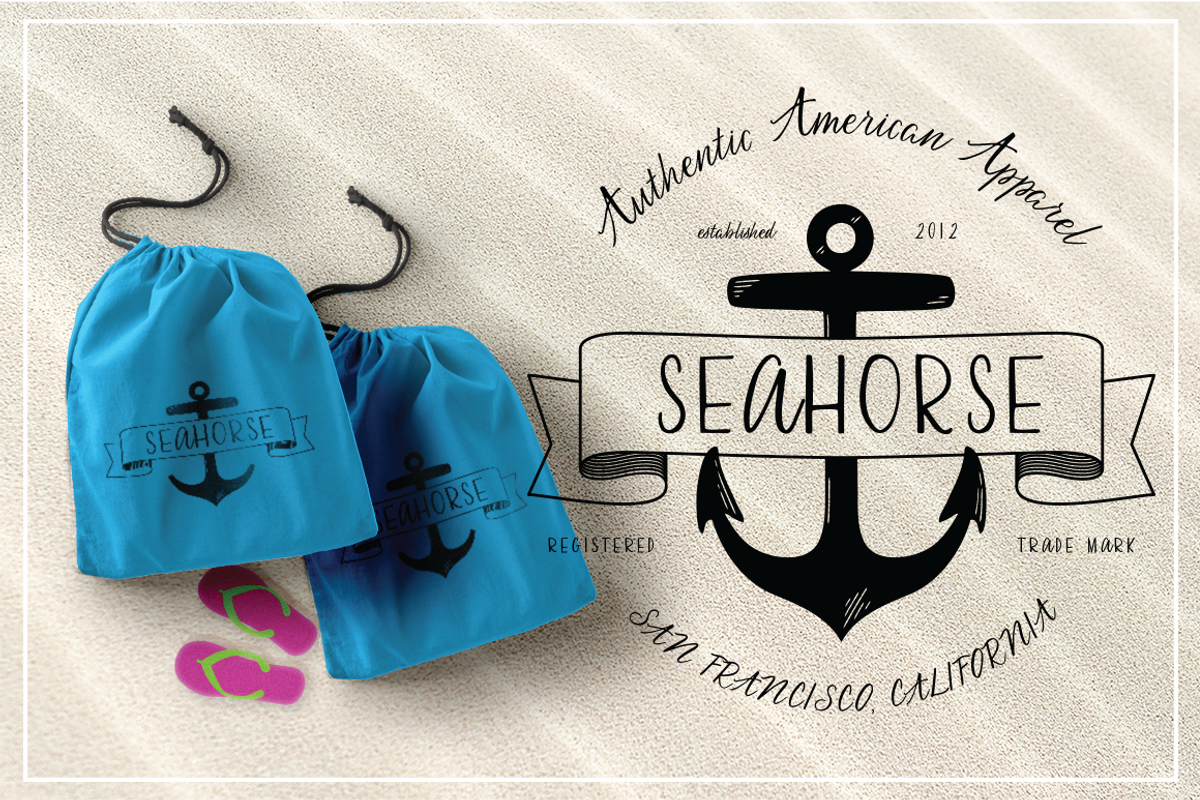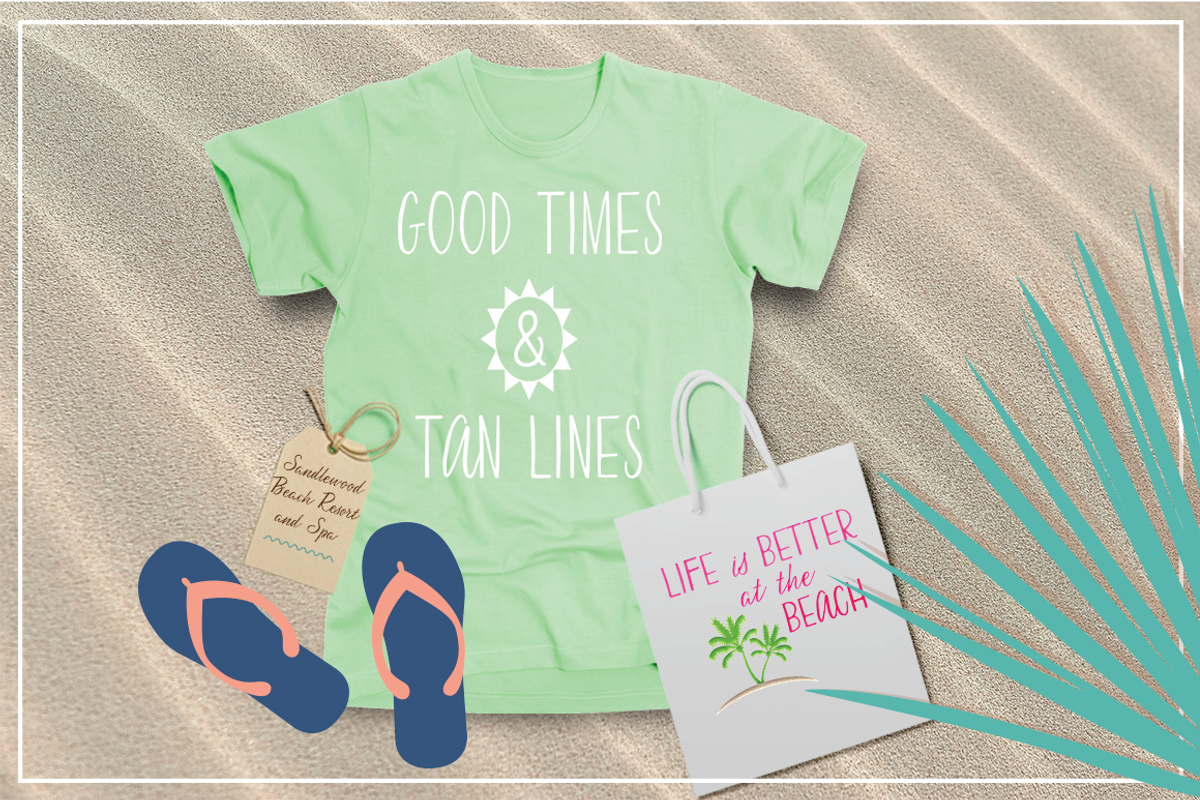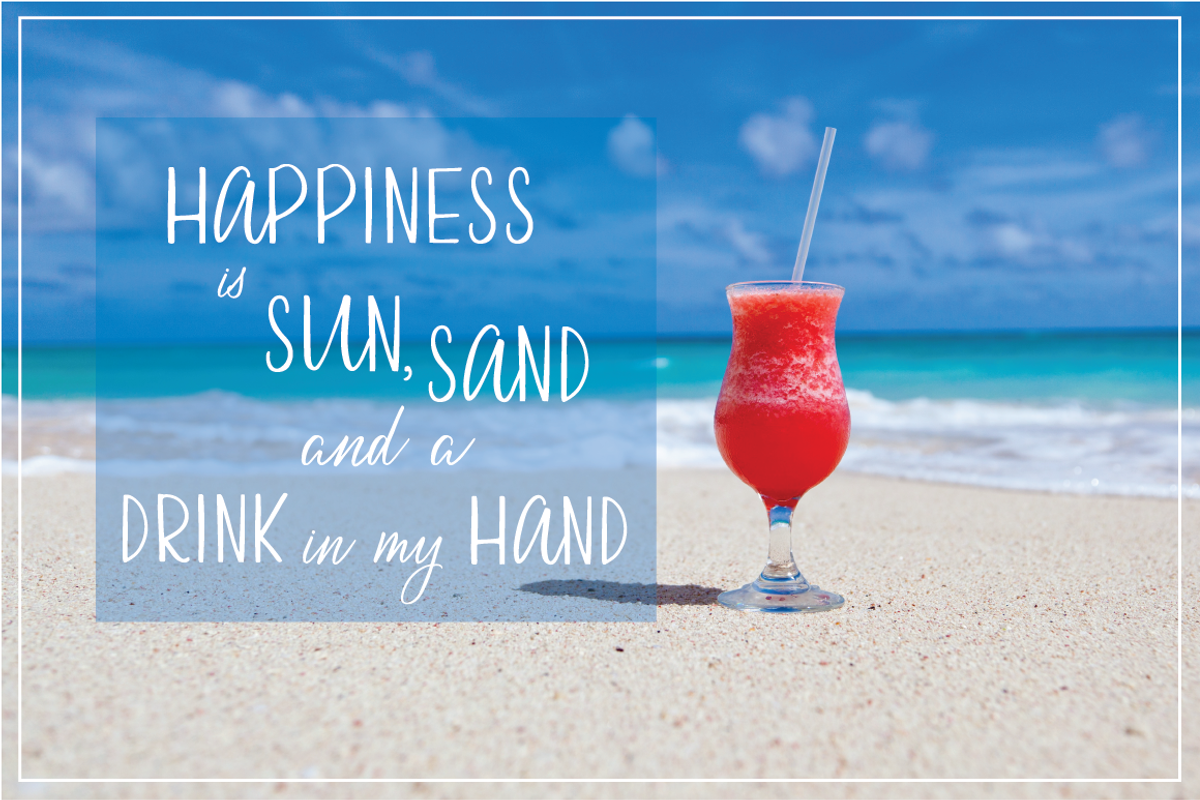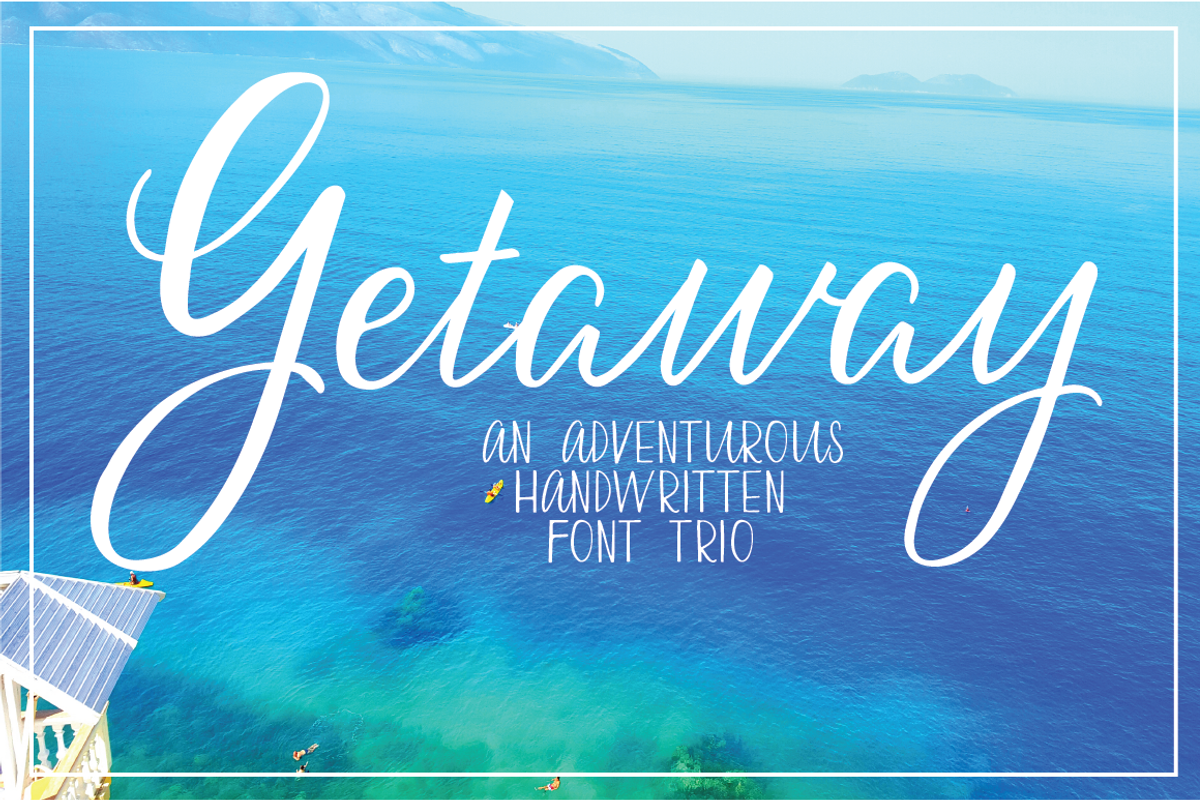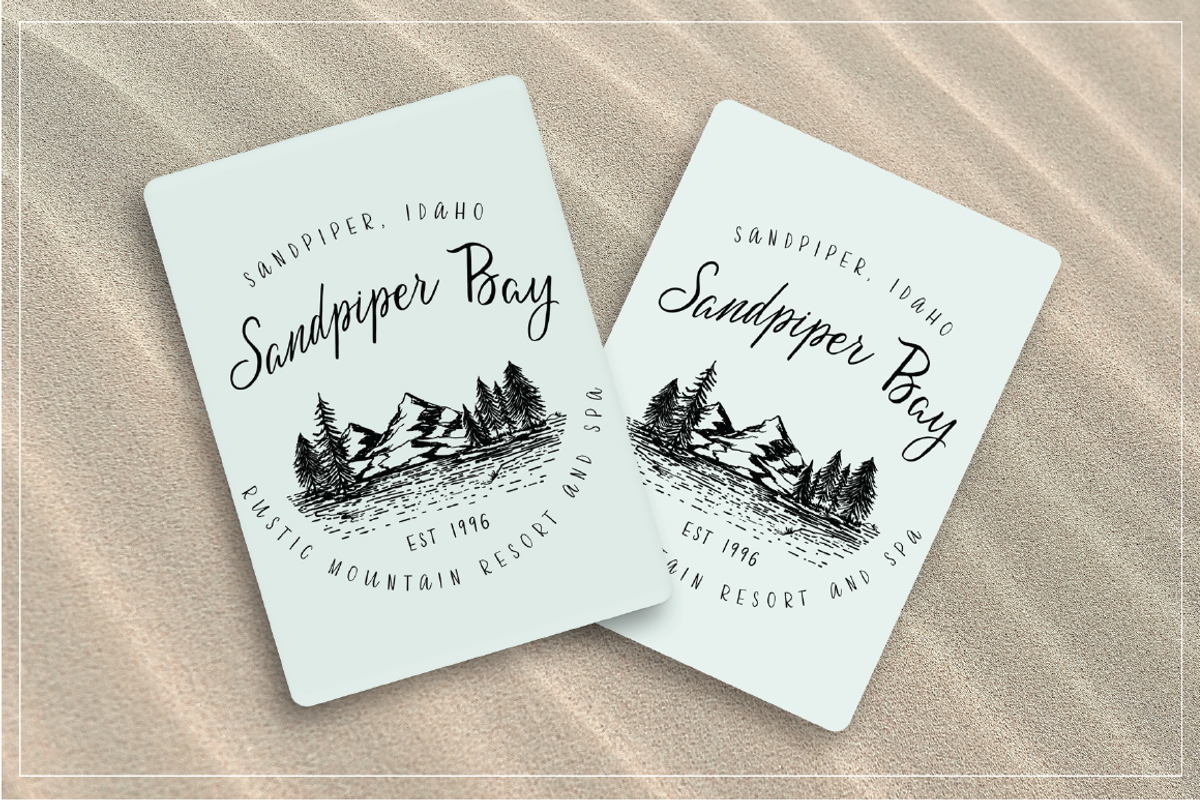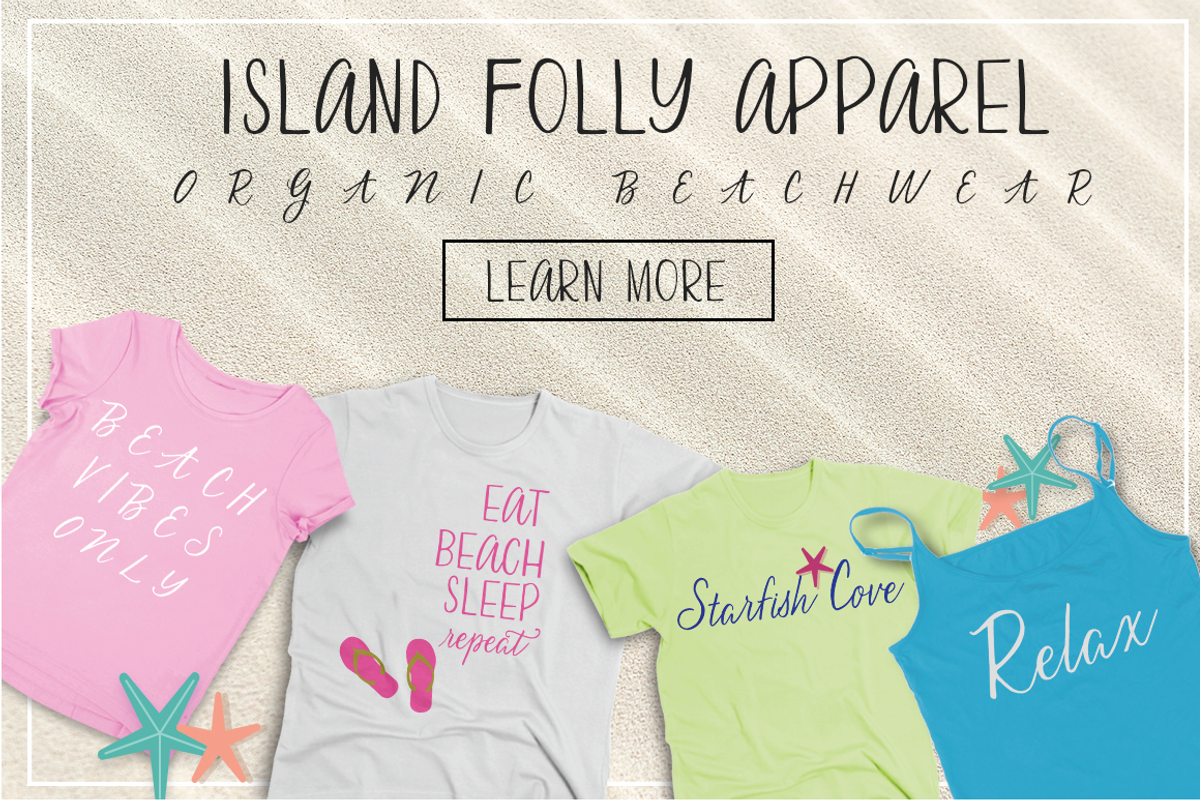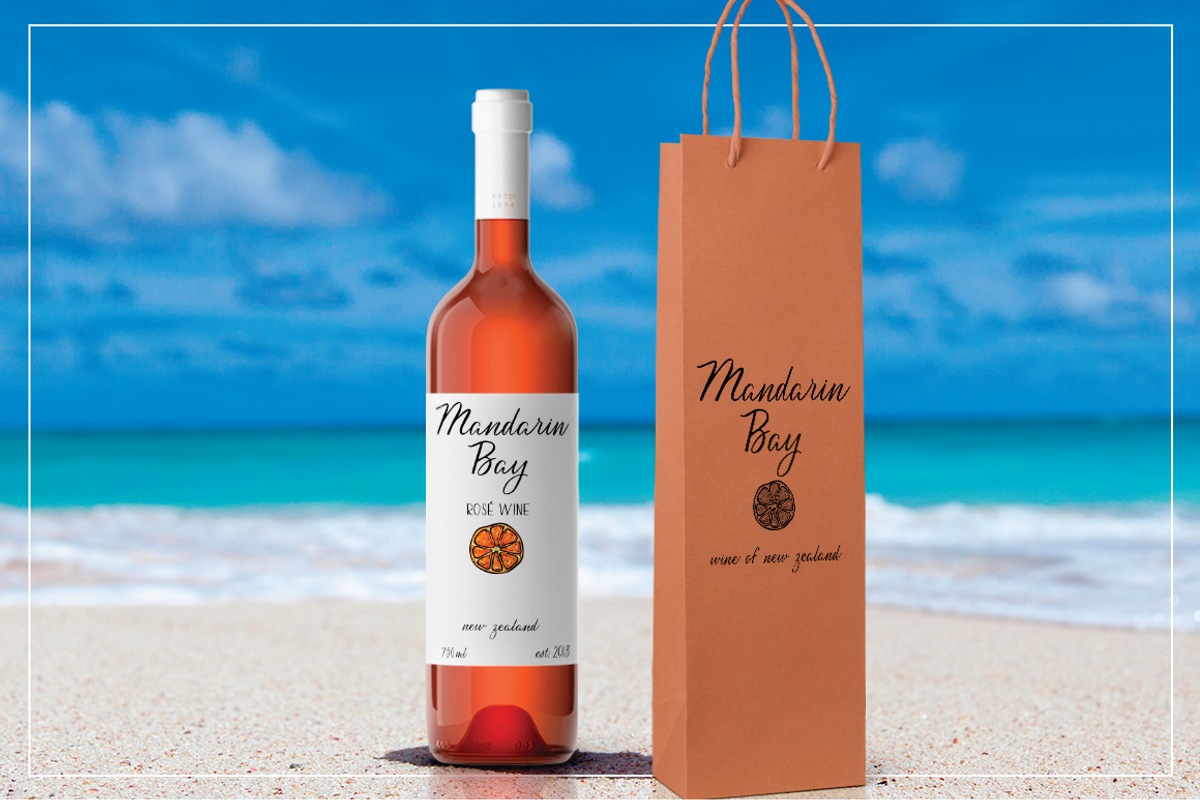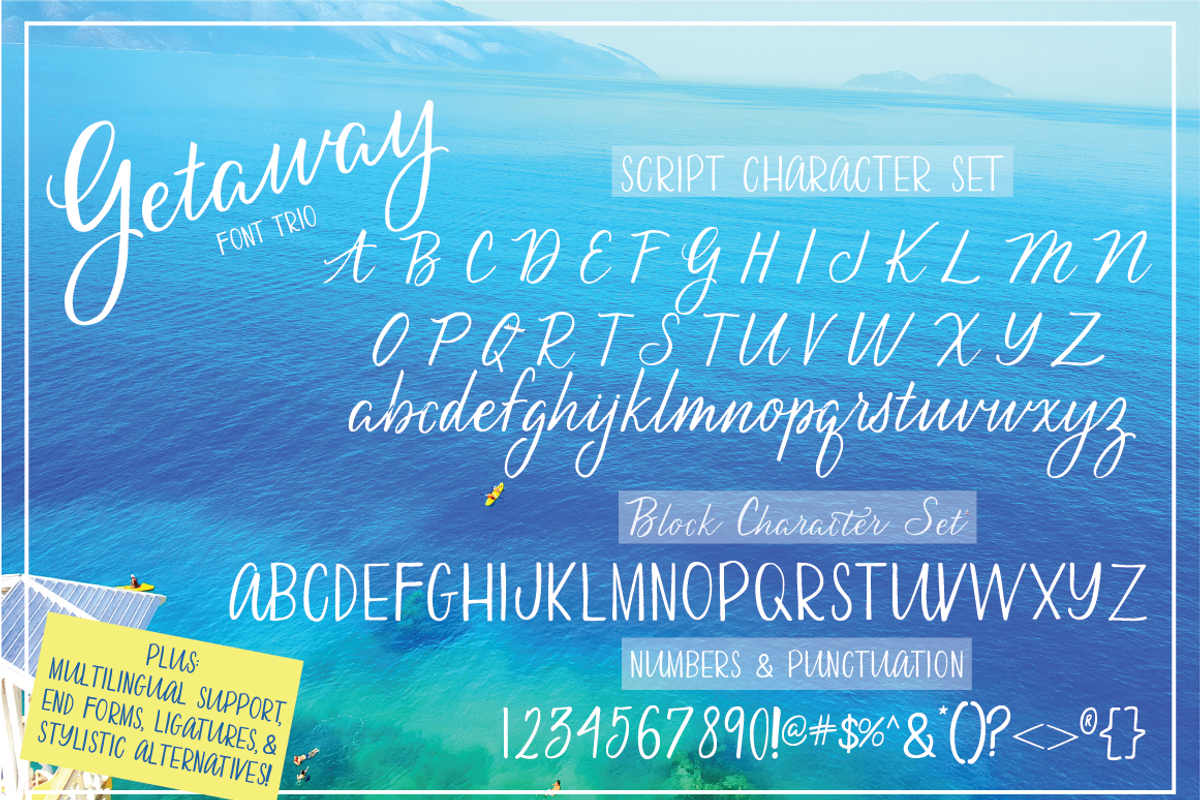
Getaway Font
Getaway Font! An adventurous handwritten font ready to go on holiday. A stylish and sophisticated script font for those that like to travel in style as well as a causal, relaxed block font for a more laid back vacation. Getaway is perfect for product packaging, prints, magazine layouts, homeware designs, and branding projects. Or my favorite, simply as a stylish text overlay to any background image.
Included in this font trio: uppercase script, lowercase script, and fun block lettering characters. Mix and match script + block for unique, creative designs.
Getaway has a variety of unique, coded features to create compelling, handmade outcomes: 1 stylistic alternates, 2 end characters, plus loads of ligatures.